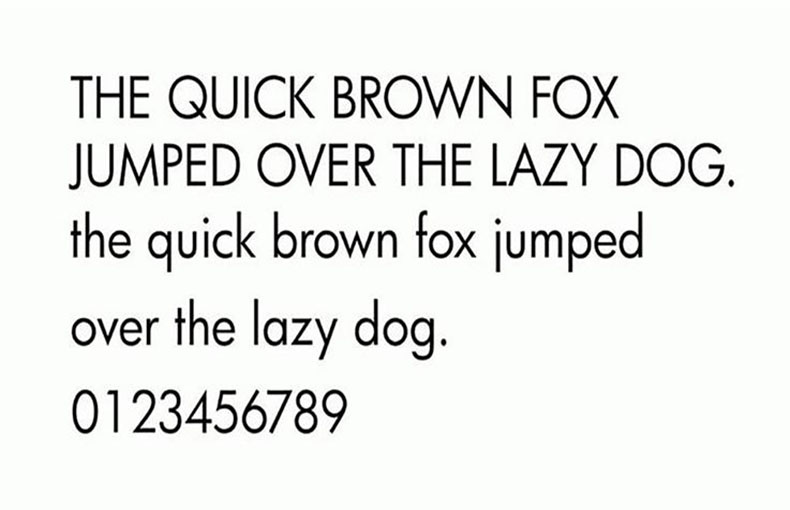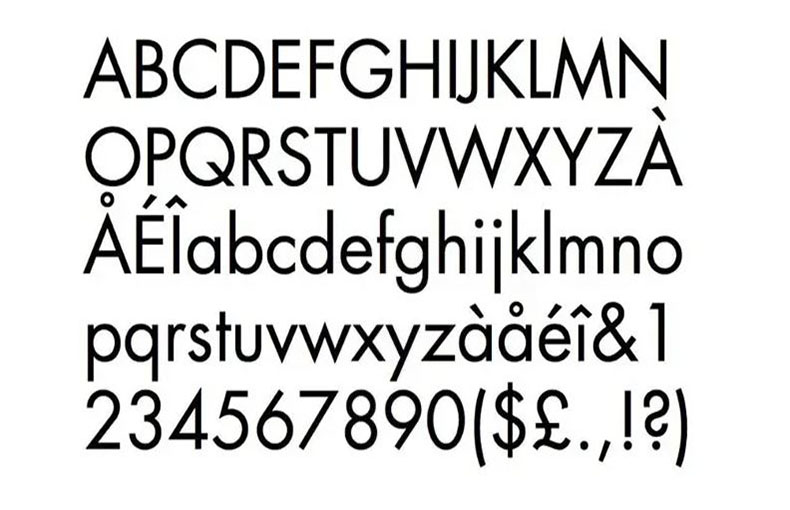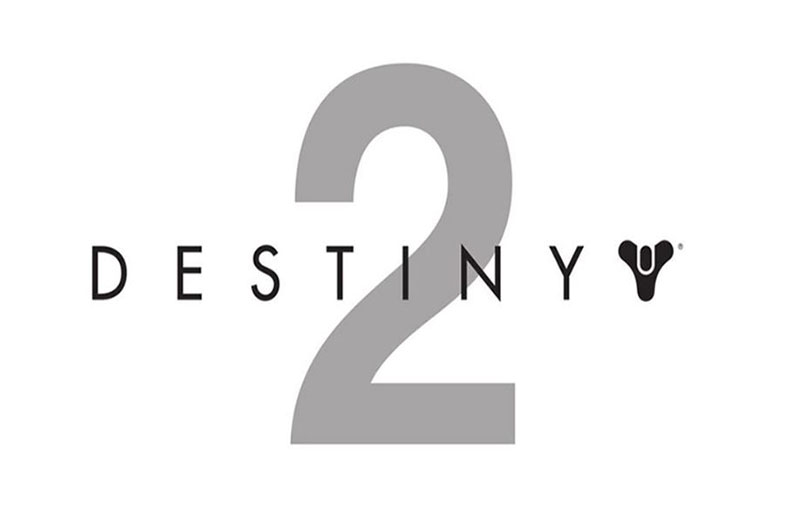
Introducing Destiny 2 Font! Destiny 2 is a free-to-play popular online first-person shooter video game developed by Bungie. It was originally released on 6 September 2017 as a pay-to-play game.
It received positive reviews from critics and was praised for its many improvements over its predecessor. As such it has won several awards including Game Awards 2017 and Game Critics Awards.
The font used in Destiny 2 multiplayer first-person shooter video game is “Futura Book”. This is a sans-serif typeface that looks great in both large and small sizes.
This font family comes in 100 different weights including Thin, Condensed, and Condensed Bold. This font includes 399 glyphs and 105 binary stored kerning pairs. Moreover, it also supports 77 languages.
Font Designer: Paul Renner
This typeface can be used to create beautiful headline designs, title designs, and name designs. This font is suitable for creating layouts for social media posts, murals, postcards, banners, and brochures.
It is great for creating organization logos and corporate logo designs. This elegant font is perfect for use in titling, image layouts, letterhead design, and stationery projects.
What font doеs Dеstiny 2 usе?
Dеstiny 2 usеs thе font Futura Book.
Why is Futura Book a good choice for thе Dеstiny 2 font?
Futura Book is a good choice for thе Dеstiny 2 font because it is both modern and timеlеss. It also has a futuristic and sci-fi fееl to it, which is appropriatе for the game’s sеtting. Additionally, Futura Book is a vеry rеadablе font, еvеn at small sizеs, which is important for a video game.